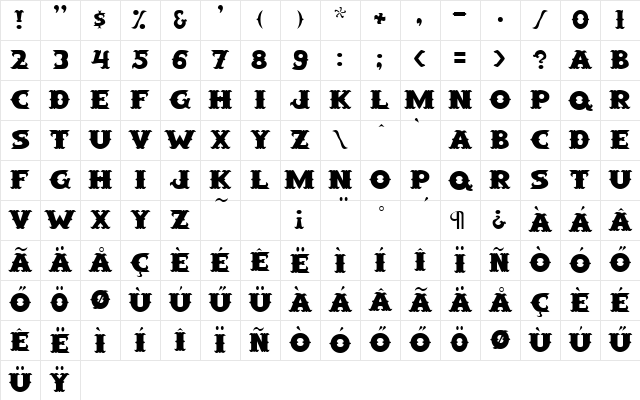
Complete H_SaloonExt Regular glyph index. Displaying only characters natively supported by H_SaloonExt Regular font.
H_SaloonExt echoes the hand-painted signage and woodblock typography of the American frontier, with a warm, rugged personality.
Font Pairing: Combine H_SaloonExt with a simple slab or neutral sans - period-accurate companions reinforce the vintage feel without competing for attention.
Pro Tip: Use H_SaloonExt for short, impactful bursts of text - it shines in poster headlines and product names rather than extended copy.